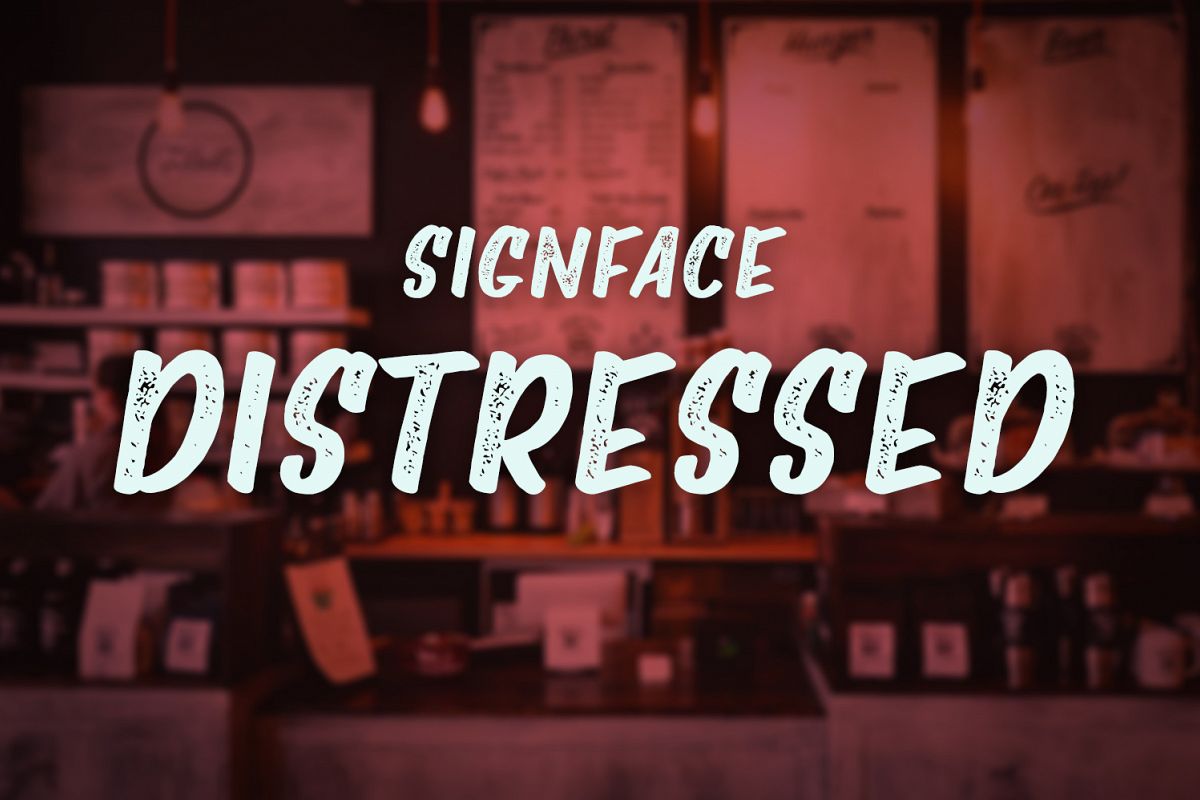
Signface Distressed
Signface Distressed is an all-caps font inspired by letterforms seen in hand painted signs. With a little extra flavor added to the retro look of Signface, this distressed version offers strong retro charm to any kind of project. Carefully crafted and unique, Signface Distressed is structured but casual and supports a variety of languages.